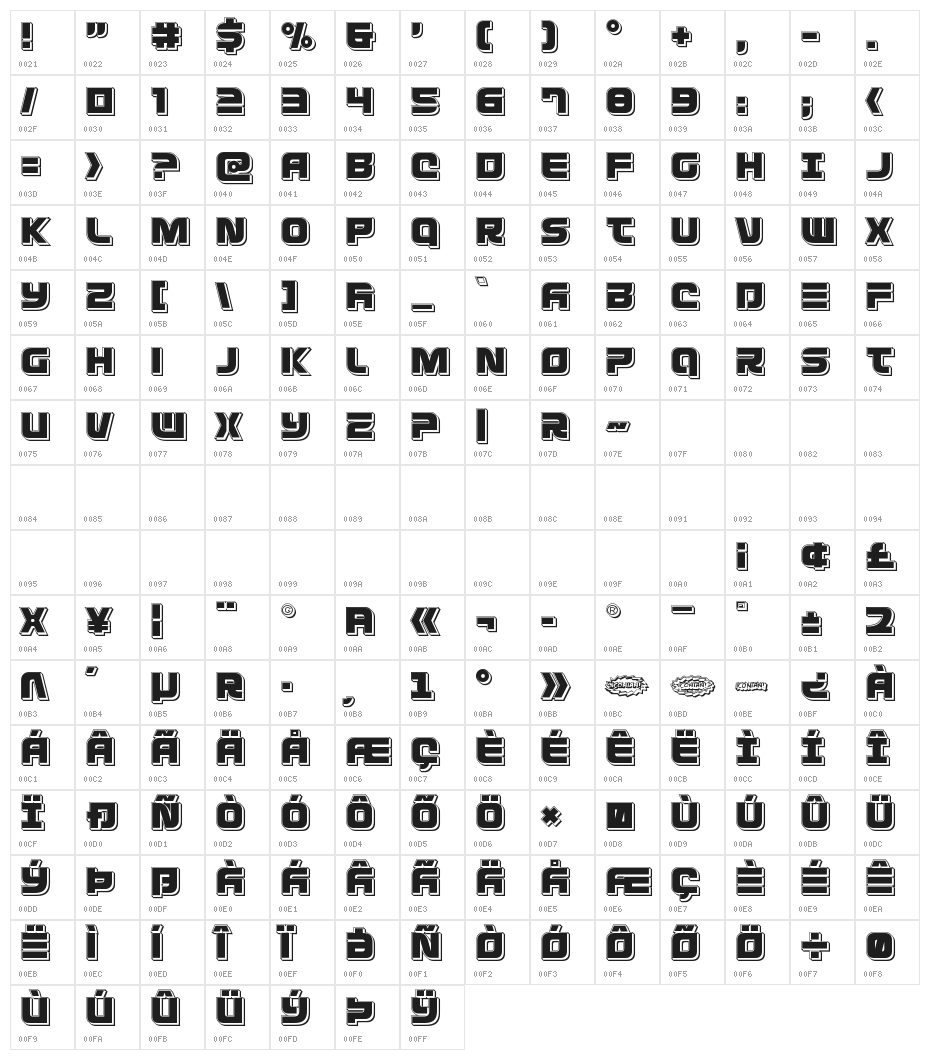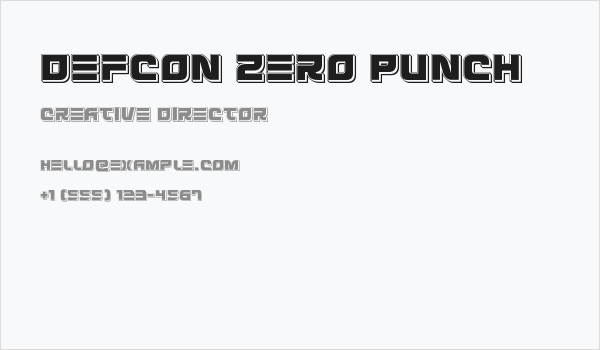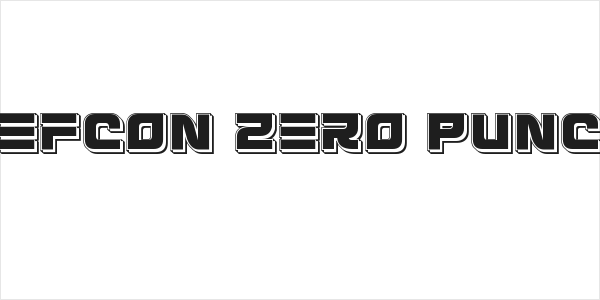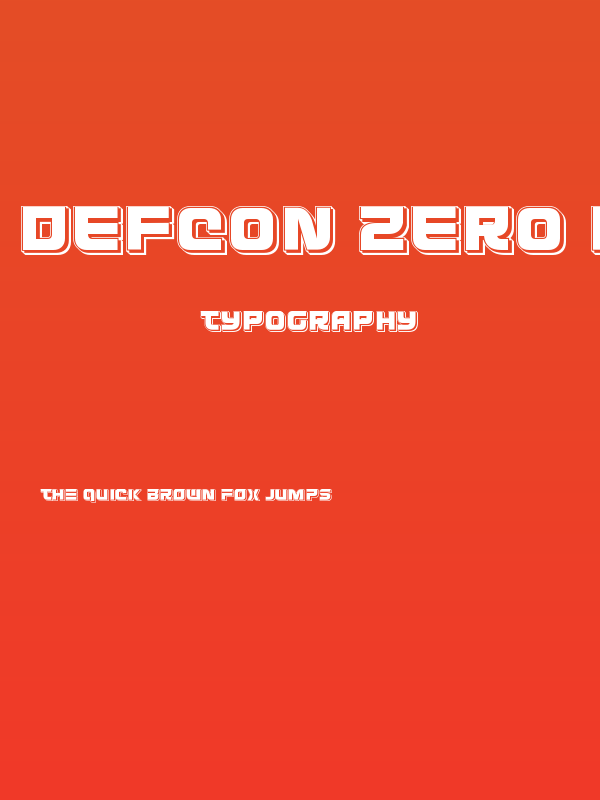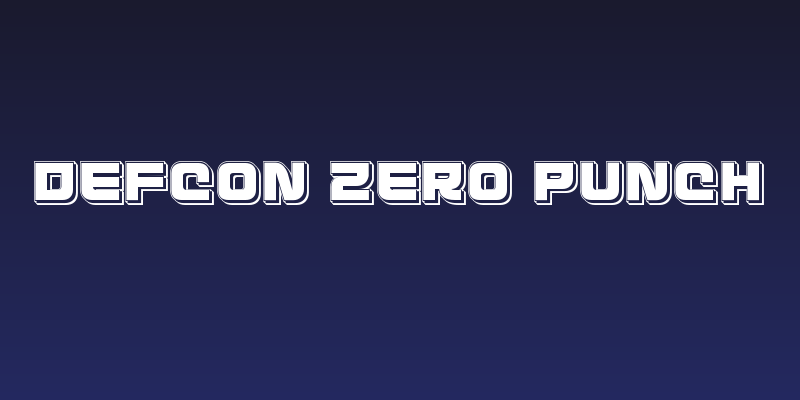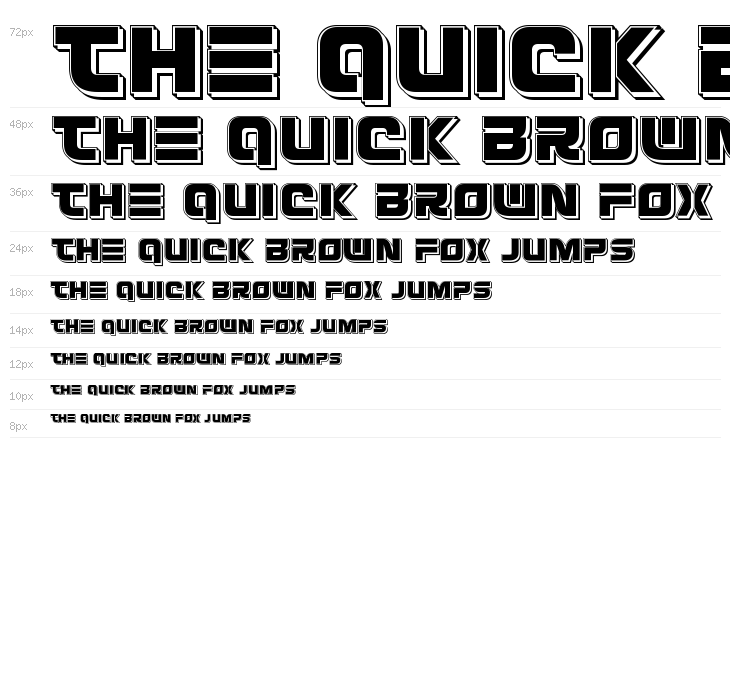
Defcon Zero Punch Font
Defcon Zero Punch Description
This font features a bold, futuristic design with a strong presence. The characters are outlined with a thick border, giving them a three-dimensional appearance. The geometric shapes and sharp angles create a sense of strength and modernity. The uppercase letters are uniform in height, while the numbers and special characters maintain the same bold style. The font's distinct style makes it stand out, suitable for projects that require a strong visual impact.
| Proposed Projects | Ideal for video game titles, sci-fi movie posters, technology branding, and sports team logos. |